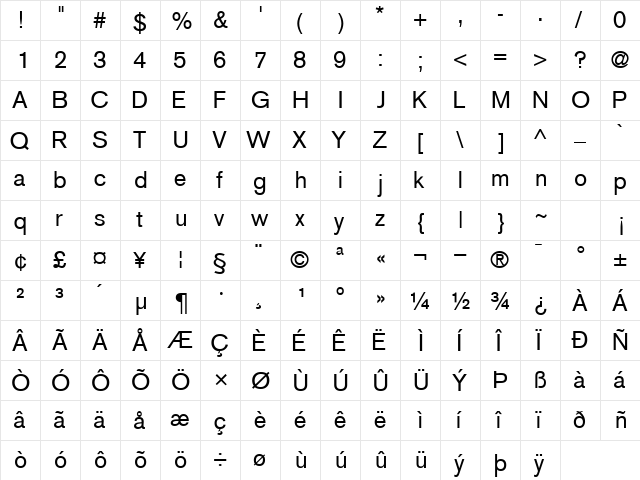
ExpressSSK Regular
Design Context for ExpressSSK Typeface
ExpressSSK is a composed and adaptable typeface that performs quietly and consistently across a wide range of design contexts.